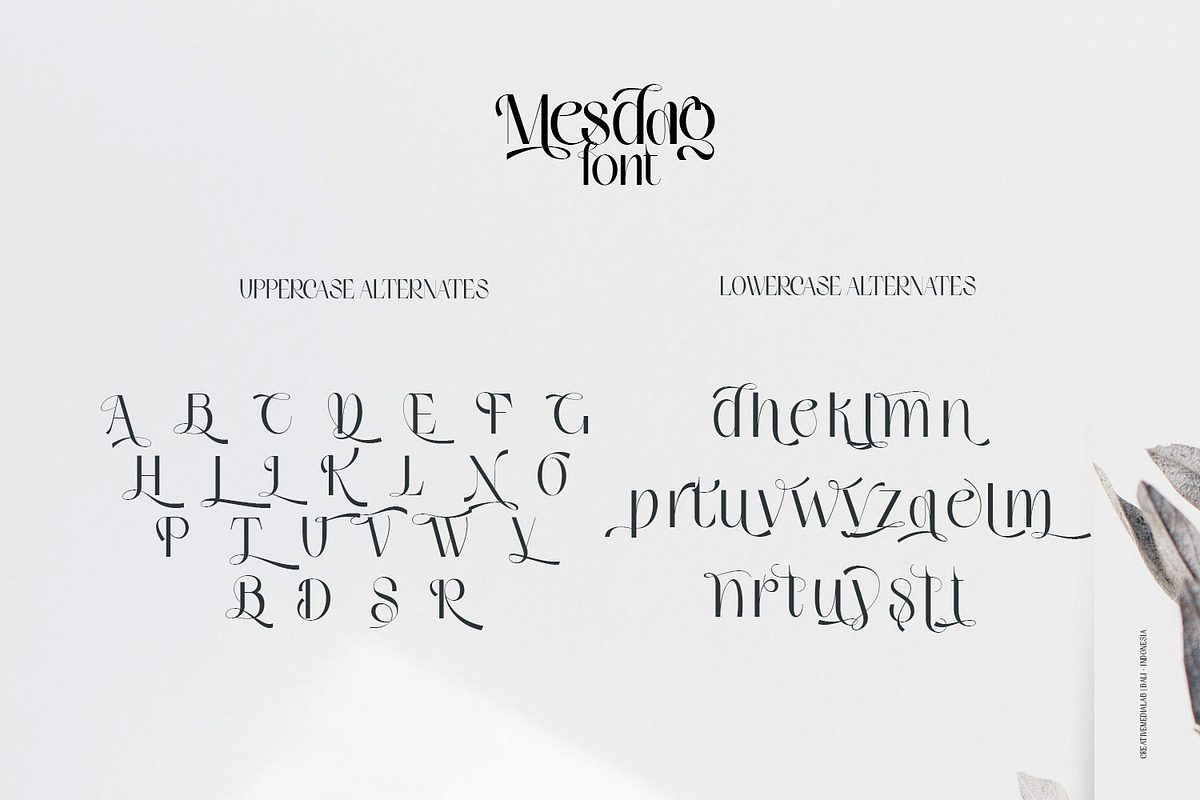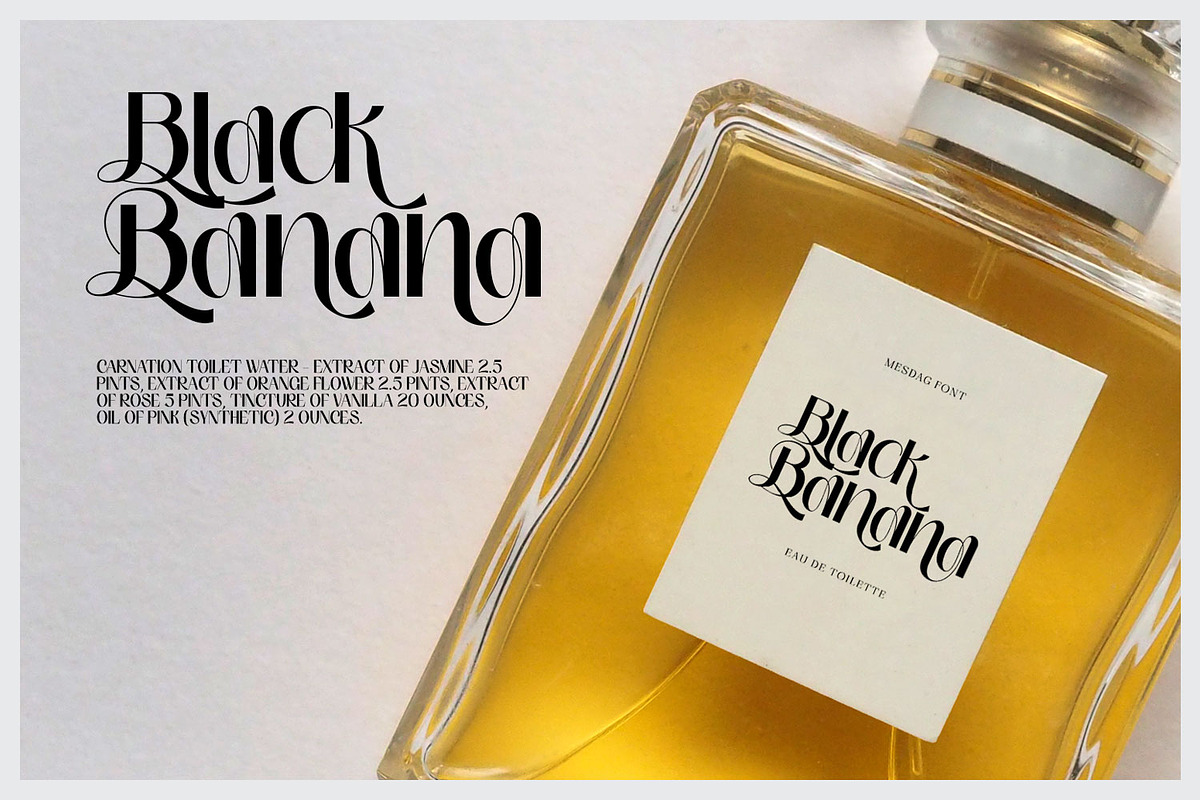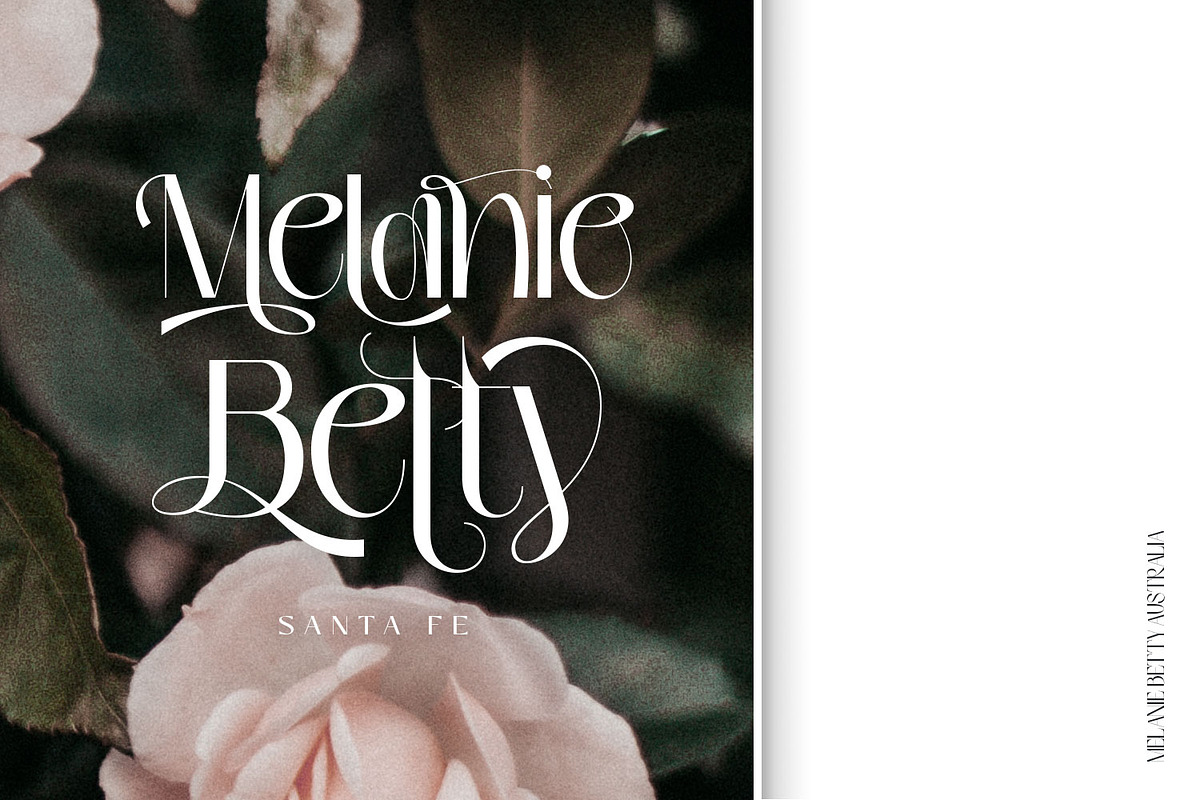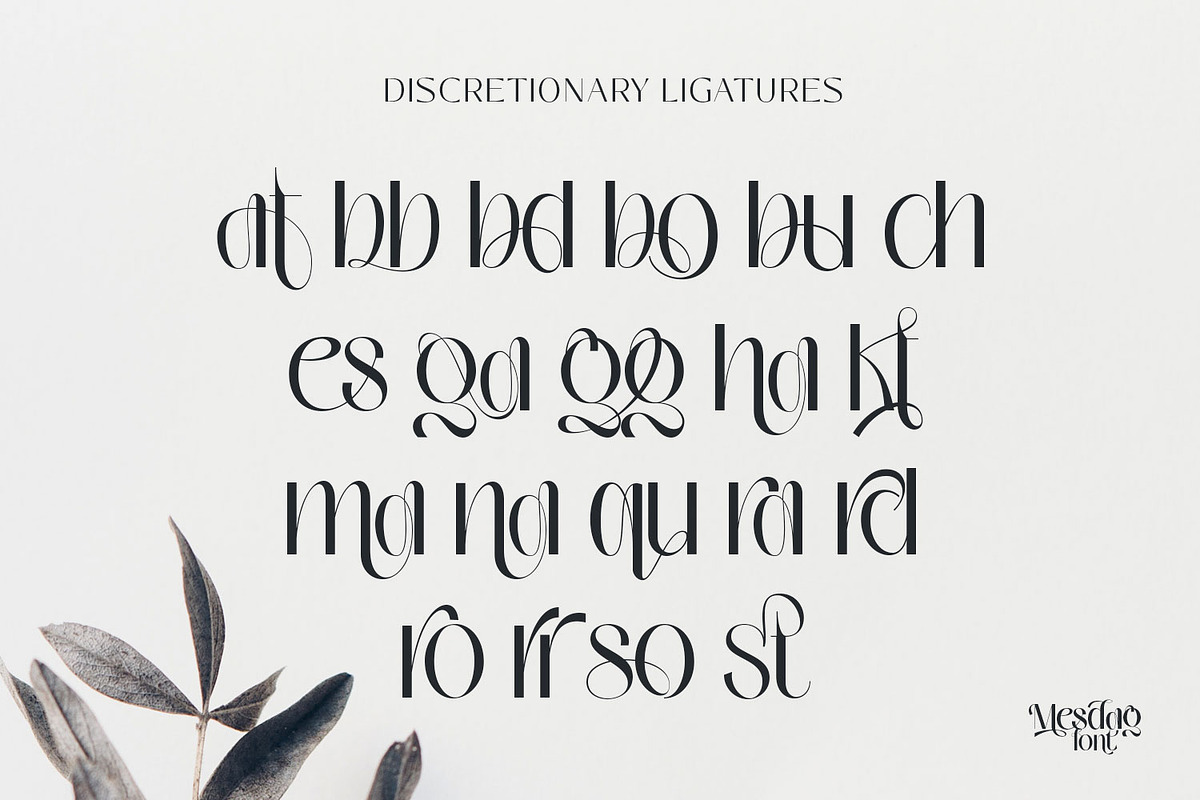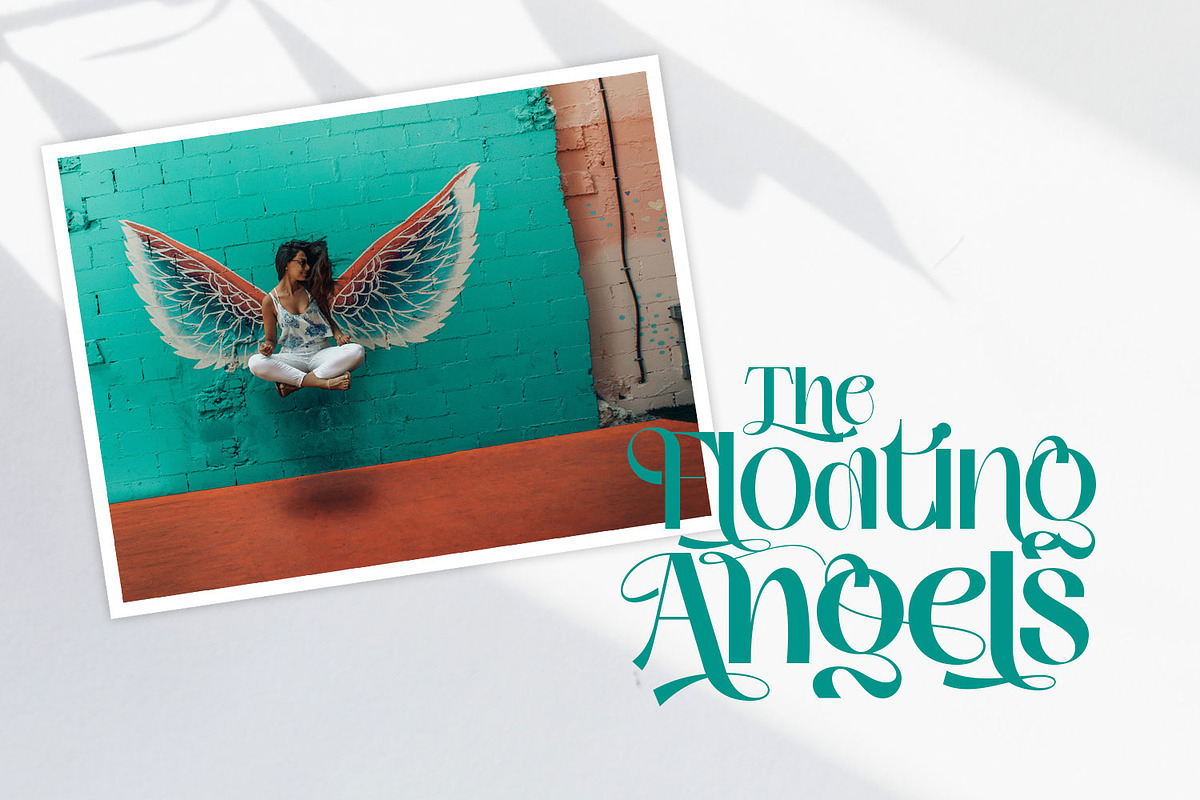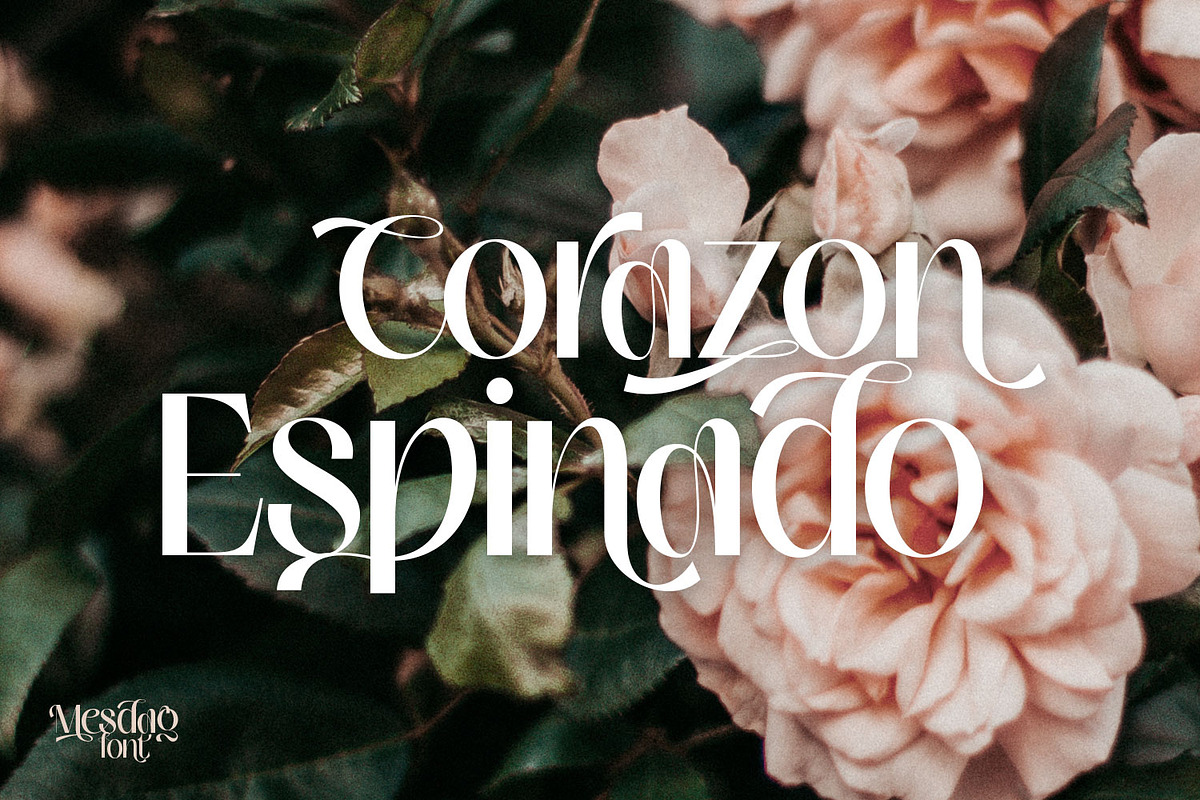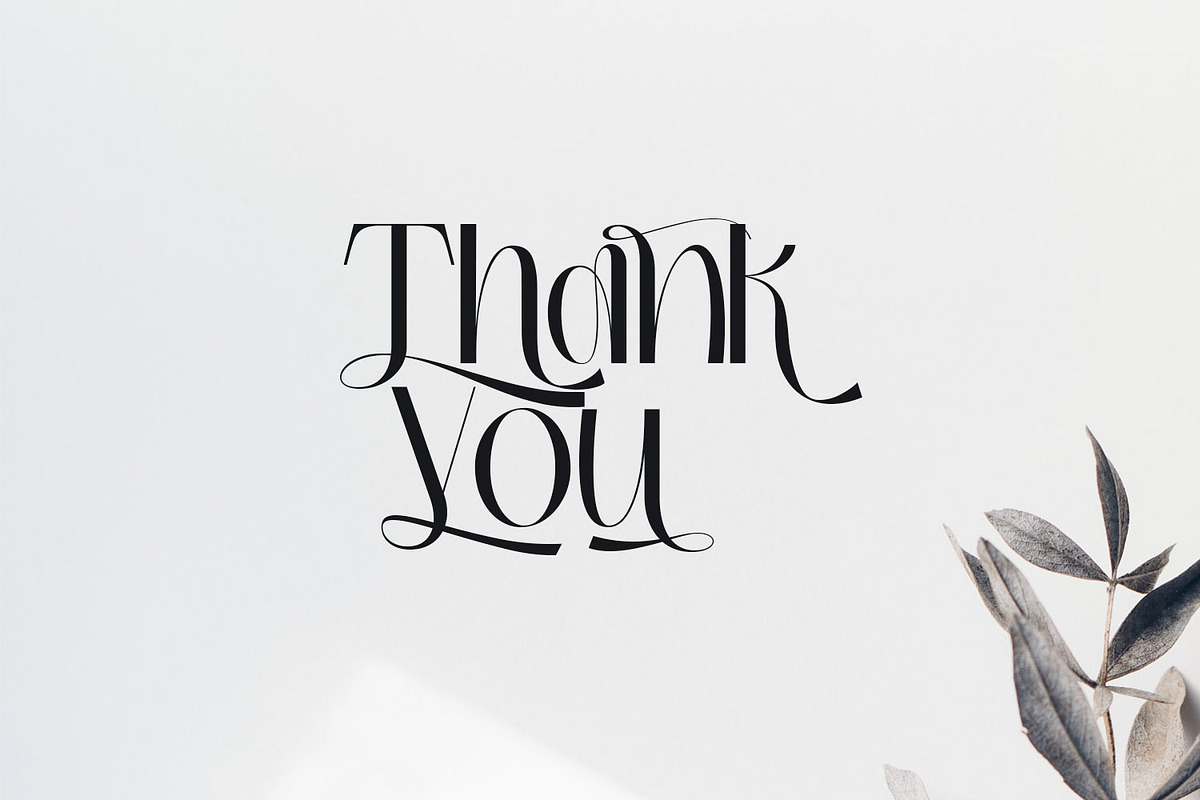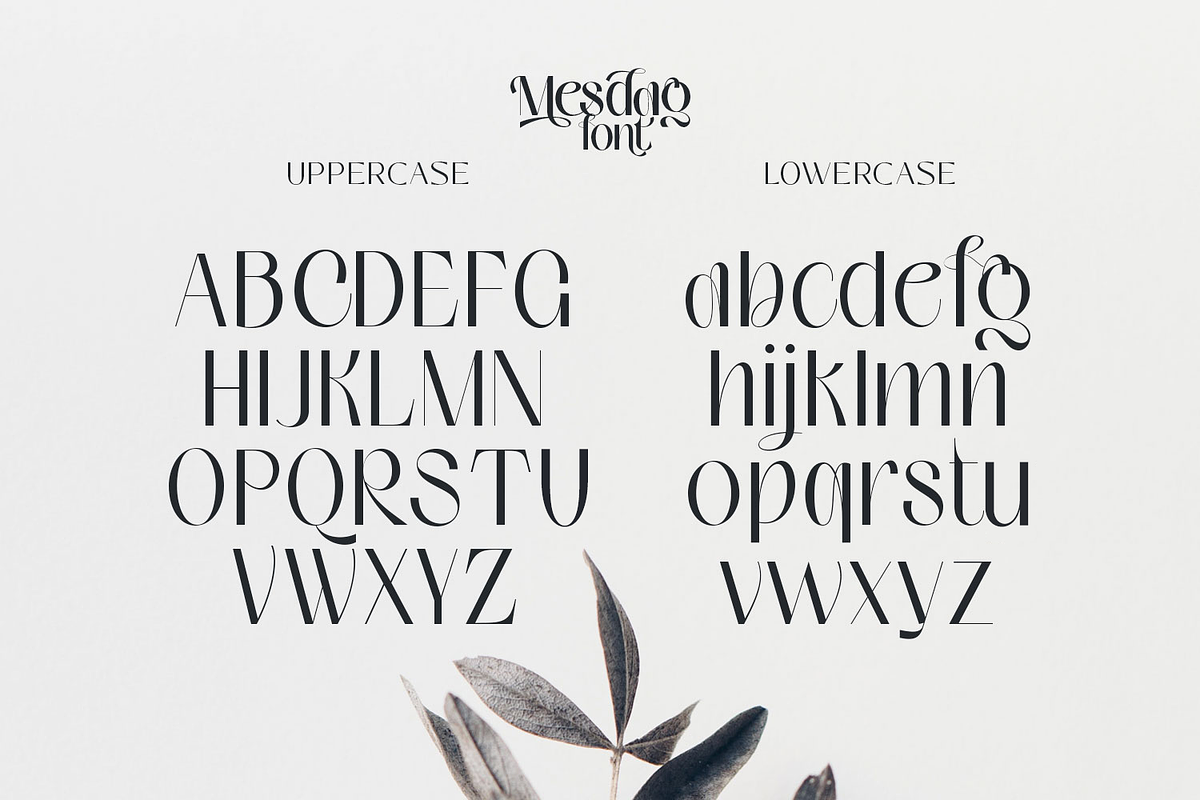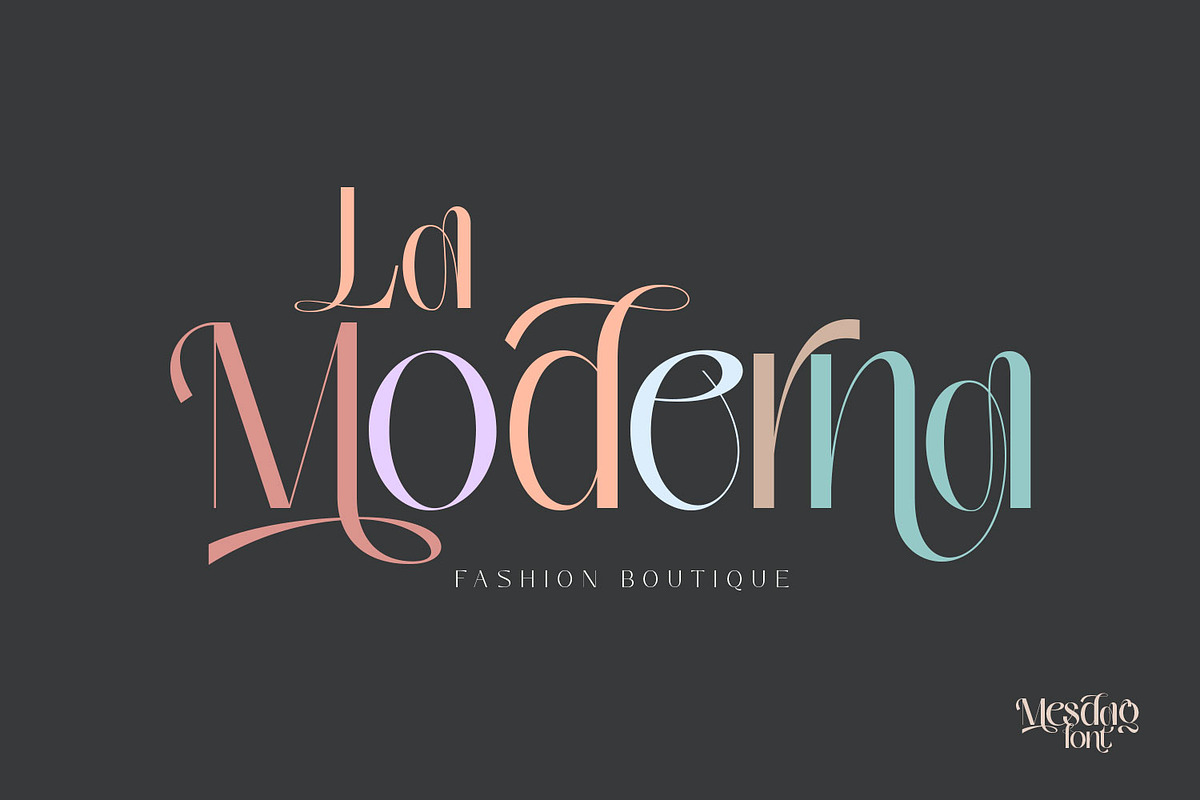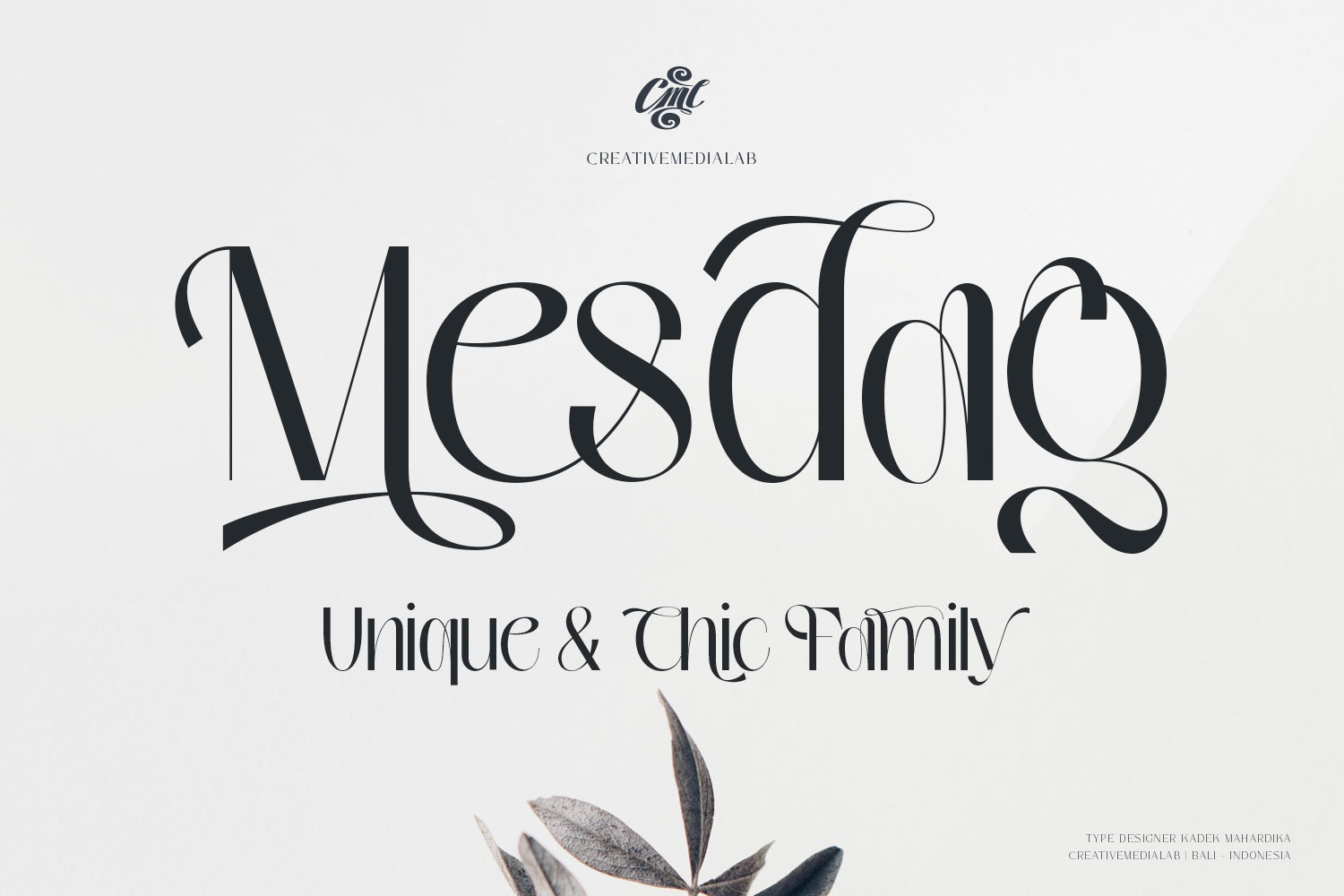
Mesdag Font - unique and chic family
Introducing Mesdag
My experiment to combined sans serif, serif and handwritten fonts, the result is modern unique and chic font, Mesdag ;)
This family consists of 9 weights and equipped with Alternates and Discretionary Ligatures that keep the smooth connections between characters. Also includes a Variable style as well as multilingual support, numbers, and currency symbols.
This family is suitable for use in many design forms, for example magazines, header, display,postcards, logos, DIY Projects, invitation card, quotes, vintage look design, old classic ,60s, 70s, 80s era, wedding projects and much more.